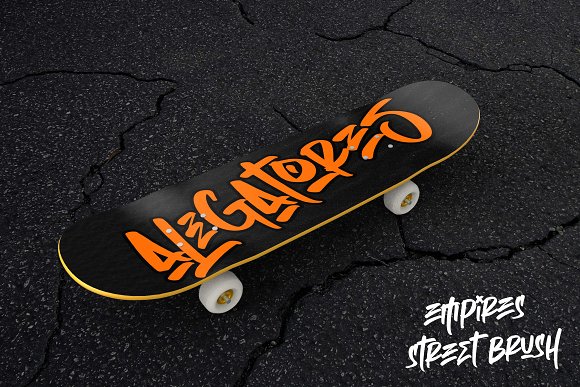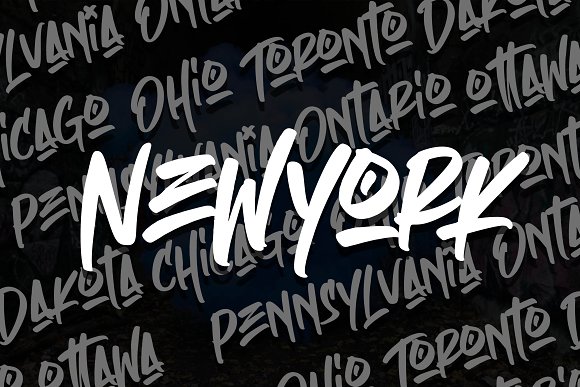
Empires Brush Font
Empires Brush Font – Free Demo
A new graffitty street brush font. It will be a perfect choice for your work. Add it to your fonts collection now! Introducing Empires Font. Empires graffitty Street Brush Font is a supercharged, street-wise brush font bursting with energy, Empires is ideal for logos, apparel,T-shirt,Hoodie, quotes, product packaging, or anything which needs a typographic turbo-boost.